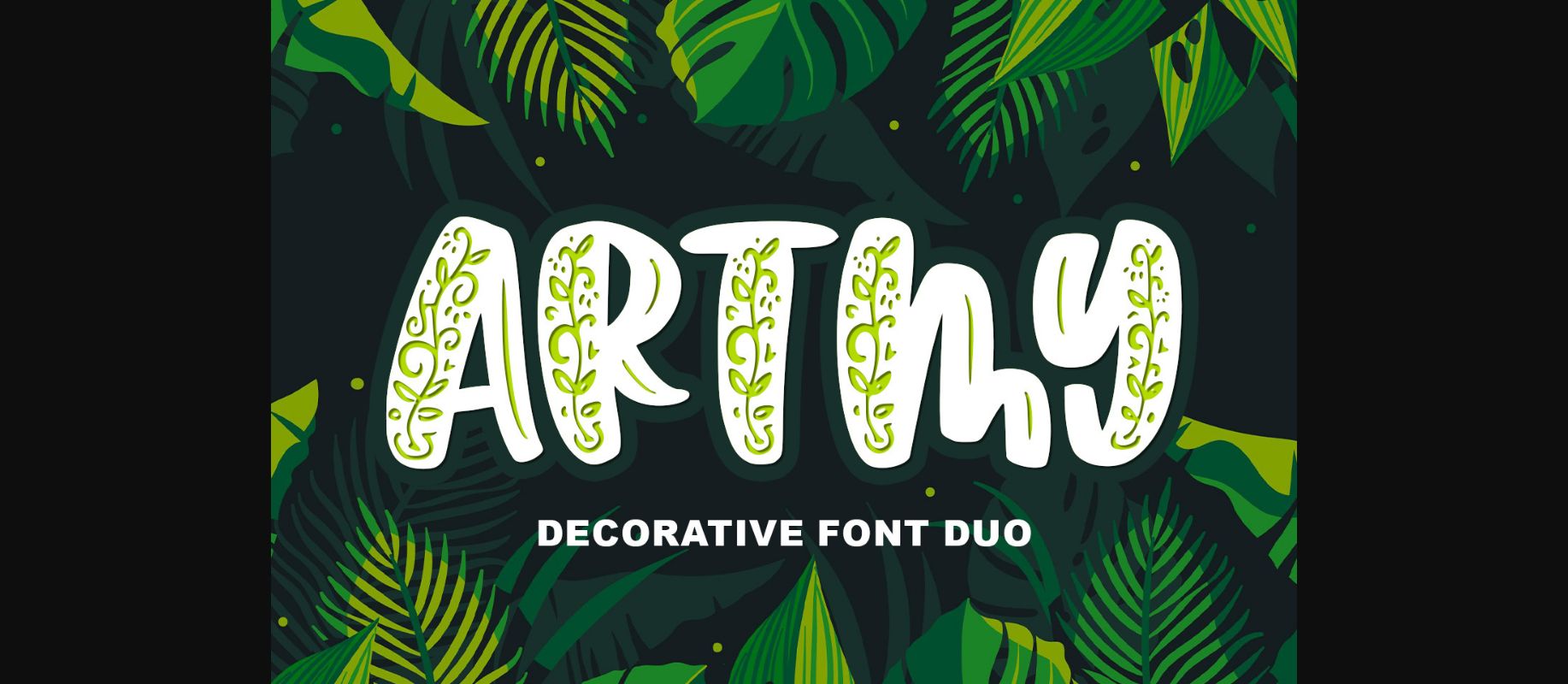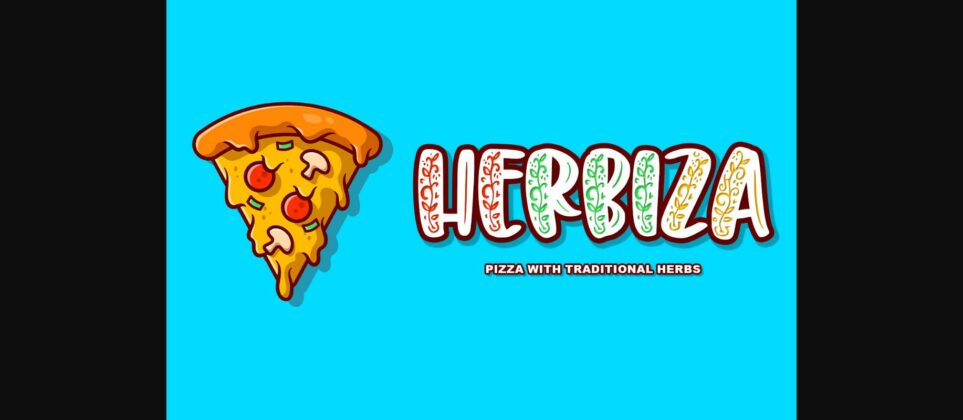
About Artmy Font
Artmy is a lovely, fresh and unique duo font (decorative and display). Whether you are using it for cartoon-related designs, children games, quotes, titles, brand names, book covers, posters, or just any creation that requires a touch of joy, this font is a great choice.